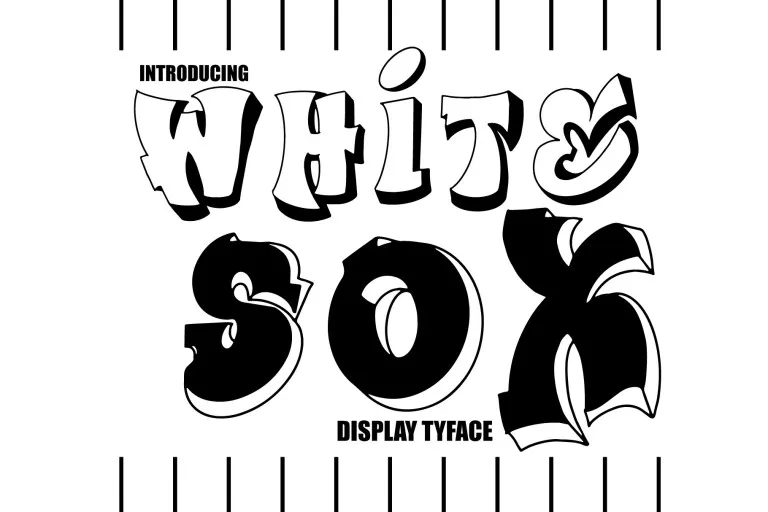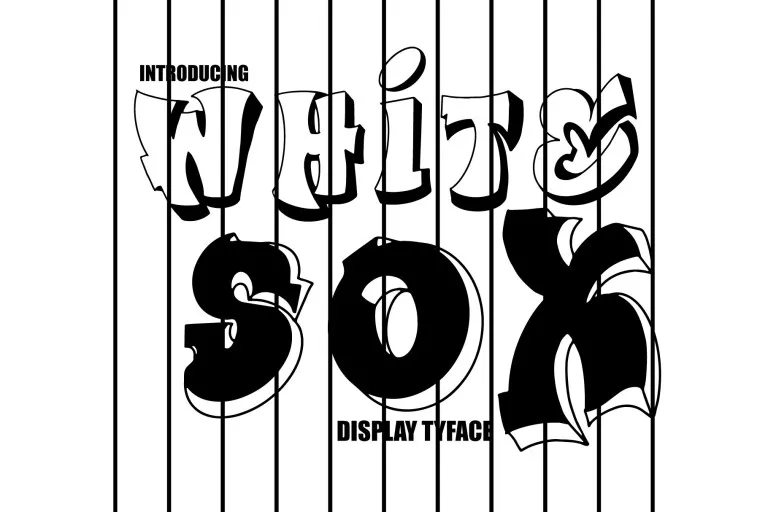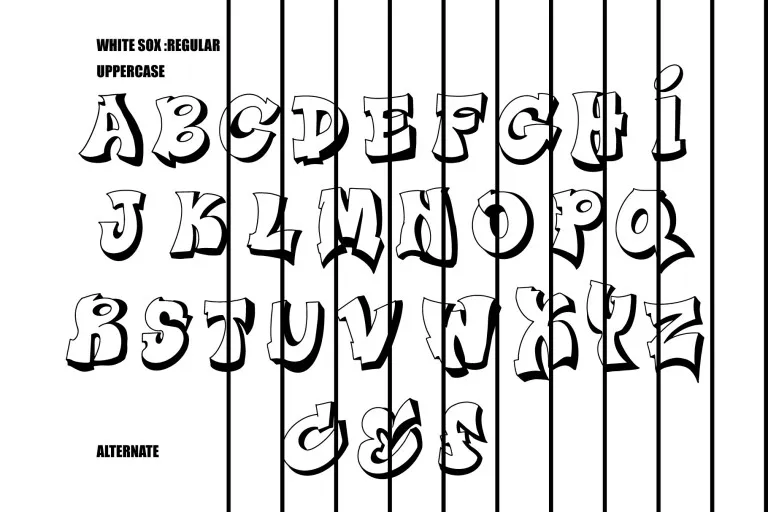
About White Sox Font
I’m a typographer and graphic designer who’s always hunting for fonts with personality. I first spotted the White Sox Font while working on a Chicago-inspired branding project. Its urban vibe immediately caught my eye. I wanted something bold yet nostalgic, something that carried the energy of baseball culture and city pride.
After downloading the White Sox Font Free Download, I used it in a sportswear logo and fell in love with how effortlessly it captured that gritty “South Side” energy. This review is my honest take on why this font stands out for anyone who loves strong, expressive type.
The Font Type and Designer
The White Sox Font is a bold, outlined display font designed by KtwoP, known for clean, character-driven typography. It draws inspiration from the iconic Chicago White Sox logo, combining a vintage baseball aesthetic with modern design sensibilities. Each letter features sharp contours, crisp outlines, and a visual rhythm that feels handcrafted yet balanced. The White Sox Font mirrors the energy of Major League Baseball graphics, reminiscent of classic jerseys, team logos, and wordmarks from the White Sox visual identity history.
This font plays beautifully with contrast, its thick lines, clean silhouette, and strong outline make it perfect for display fonts. The letterforms echo the old Chicago White Stockings style, yet they feel new and adaptable to branding and cricut projects. You can sense the designer’s respect for baseball culture through every curve and white outline. The colors are black and silver, classic to the team’s brand identity, and they match the modern sports look. KtwoP managed to turn a piece of baseball nostalgia into a versatile logo font that works beyond sports, ideal for chicago sports, professional baseball, and even lifestyle branding.
Features of This Font
What makes the White Sox Font special is its balance between sport and style. It has bold lines with perfect spacing, giving it a powerful stance on any design. The contours of the letters add depth, making them pop when placed over dark or textured backgrounds. The silhouette of each letter feels confident, almost like a player ready to take the field.
It’s not just a baseball font, it’s a full-on design tool. The Gotham bold font influence gives it a professional finish, while the cursive accents on some alternates bring in an urban flair. You can easily pair it with modern sans-serif fonts for headlines or team name layouts. Whether you’re creating a white sox team poster, MLB team merchandise, or a franchise logo, the font adapts beautifully.
The black color tones create contrast and punch, while the white outline keeps it balanced and clean. It represents chicago baseball culture, a mix of toughness and tradition. Every letter feels intentional, like part of a larger team logo design system. You can even use it for world series graphics, jersey mockups, or brand downloads where the visual energy needs to stand out.
The White Sox Font works anywhere you want attitude and edge. It’s perfect for logos, uniforms, and sports branding, especially for teams, clubs, or baseball fans who love bold, vintage looks. I’ve seen it look incredible on Chicago White Sox team colors, souvenir jerseys, and wordmarks for sports bars.
It also performs beautifully in digital spaces. If you’re designing professional baseball graphics, chicago sports promotions, or a new white sox logo, this font adds a layer of authenticity. Even outside of sports, it fits urban apparel, streetwear branding, or anything that needs a confident statement.
For creators using Cricut, this font cuts smoothly, thanks to its clean outlines. You can use it for display font projects, downloadable templates, or custom baseball team merch. Whether you’re reimagining a new logo or building a full brand identity, the White Sox Font Free Download gives you instant access to professional-grade design quality.